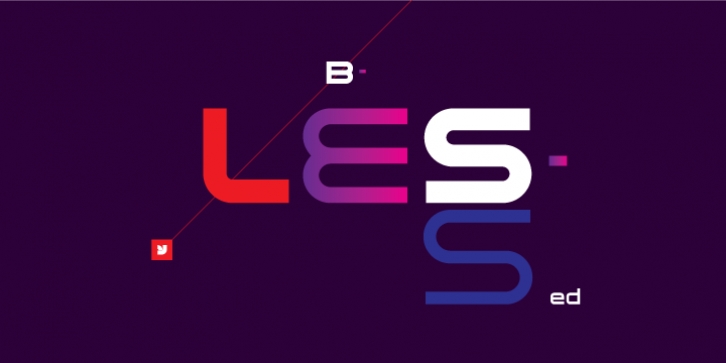
Blessed was developed as a display face while working on Mtv.com. Legibility and uniqueness were two main objectives when creating this face as well as anti-aliasing properly. Both the upper and lowercase have a unique and consistent feel.